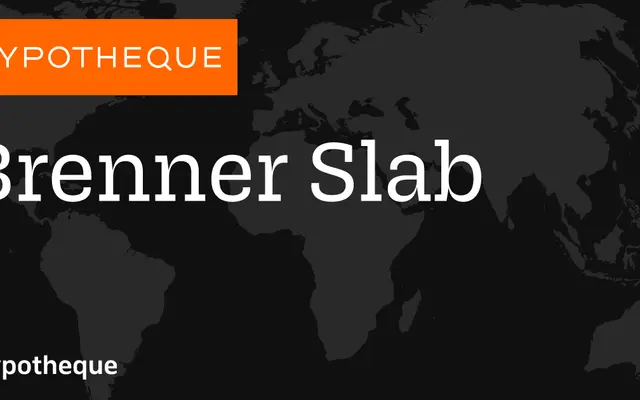
Brenner Slab
A four-weight slab serif from Typotheque with matching italics and a variable font, part of the wider Brenner superfamily.
Brenner Slab offers Light, Regular, Medium and Bold weights, each with a matching italic, making eight styles in total. A variable font is also available, giving continuous control across the weight axis. As part of Typotheque's Brenner system, it is designed to work alongside other members of that superfamily in mixed-family editorial settings.
A slab serif family with matching italics across four weights, including a variable font, sitting within the broader Brenner superfamily from Typotheque.